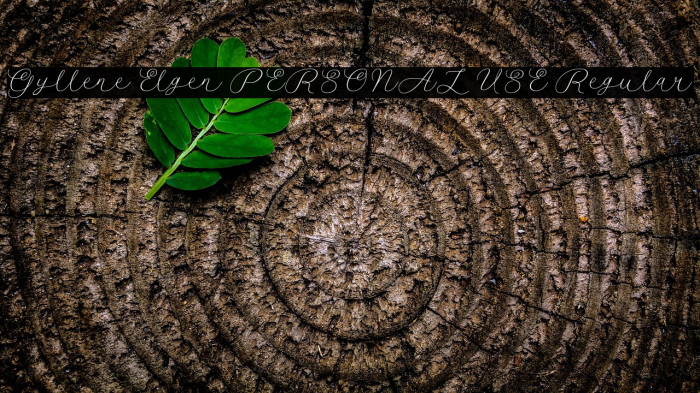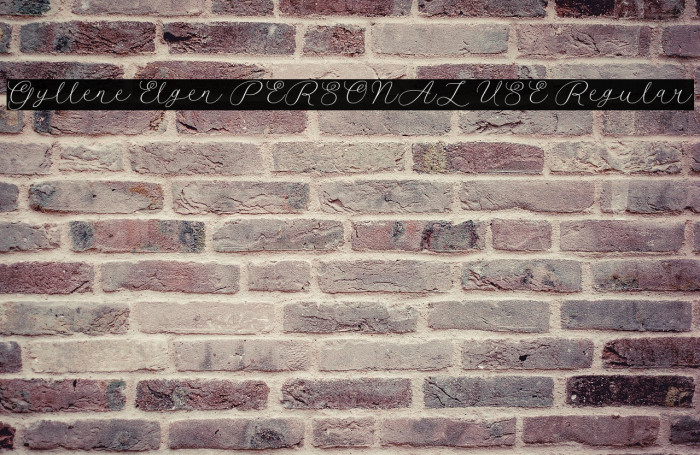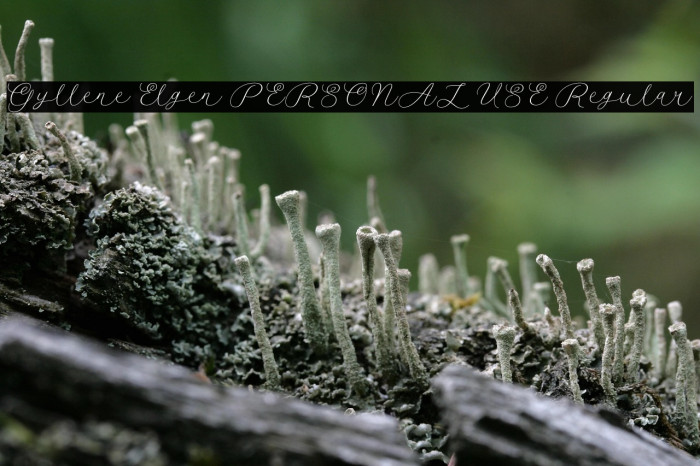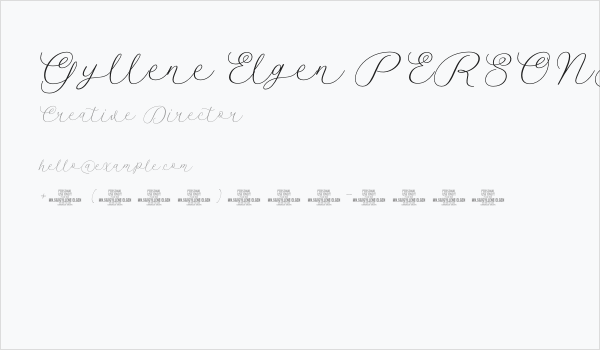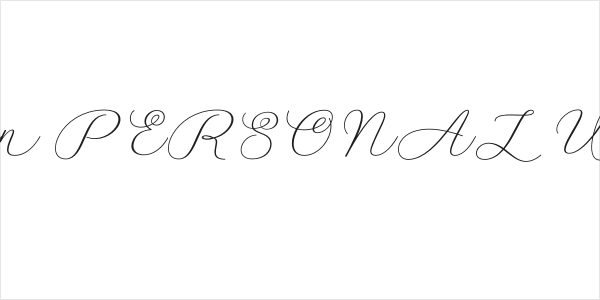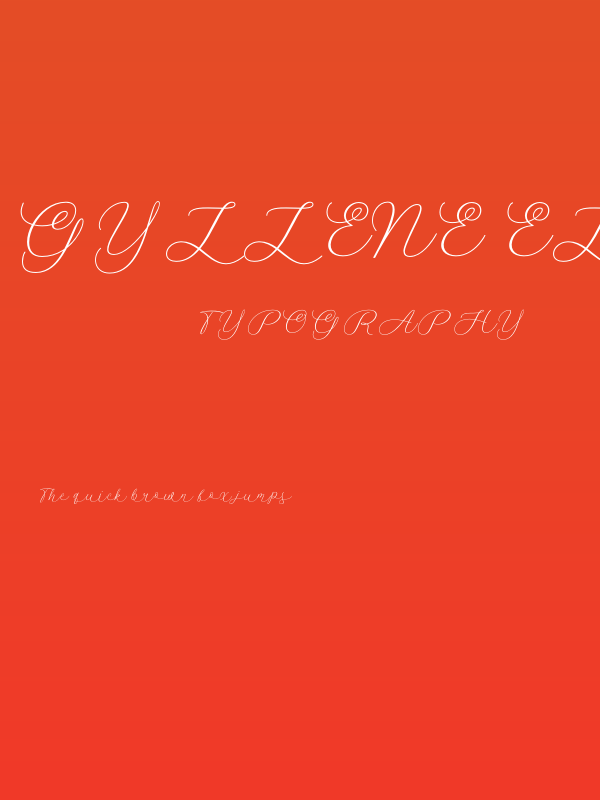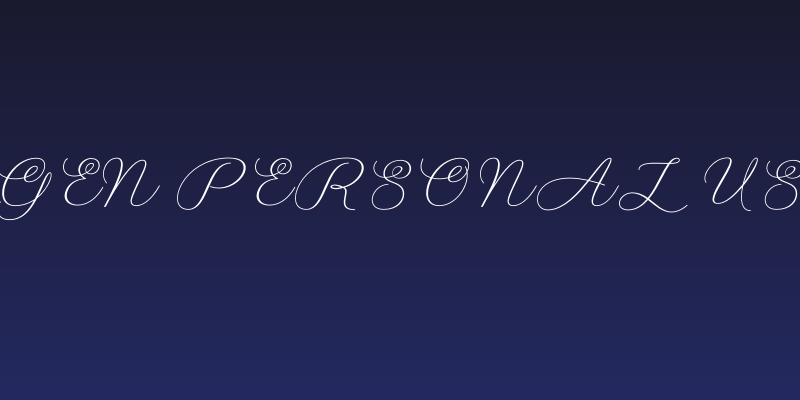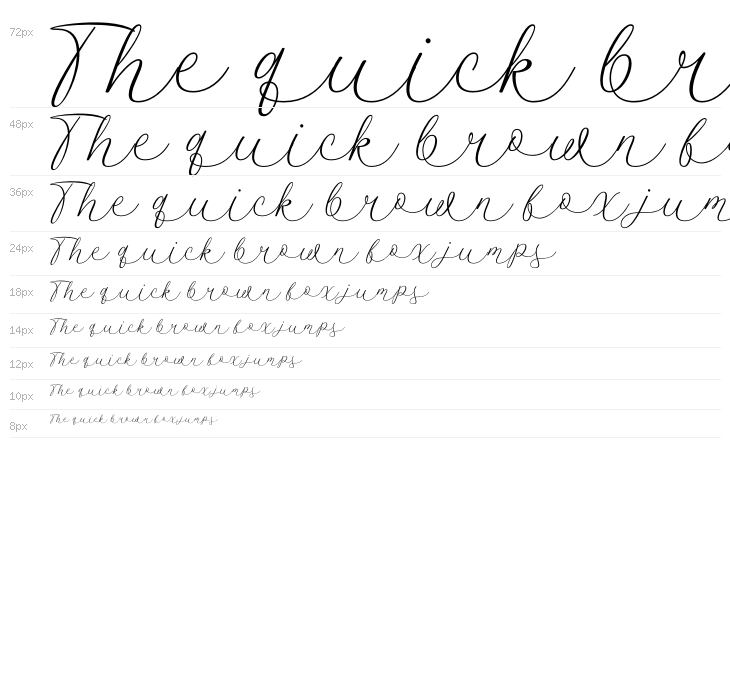
Gyllene Elgen PERSONAL USE Regular Font
Gyllene Elgen PERSONAL USE Regular Description
This font features an elegant, flowing script style that mimics the fluidity of cursive handwriting. The characters are interconnected, creating a seamless and sophisticated appearance. The strokes are thin and delicate, providing a sense of grace and refinement. The uppercase letters are slightly more ornate, with loops and swirls that add a touch of flair. The lowercase letters maintain a consistent rhythm and balance, enhancing readability while preserving the decorative nature. The numerals and special characters are designed to match the overall aesthetic, ensuring a cohesive look across all elements.
| Proposed Projects | Ideal for wedding invitations, elegant branding, personal stationery, and decorative quotes. |